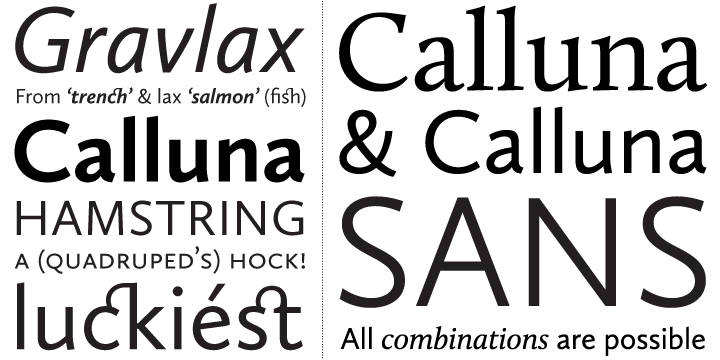
Calluna Sans is a sans serif font family. This typeface has ten styles and was published by exljbris Font Foundry.
Calluna Sans is a humanist sans based on Calluna. It has true italics, small caps, lots of ligatures, 4 numeral sets and much, much more. Be sure to have a look at the carefully designed Calluna Sans PDF specimen. Calluna Sans comes in 10 fonts: 5 weights each with an italic. Calluna Sans is spaced and kerned with Igino Marini’s iKern service.